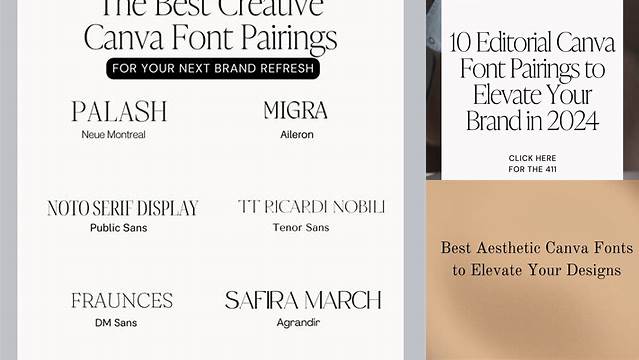
Best Canva Fonts: Create Professional Designs
Choosing the right font is crucial for creating professional and impactful designs. In this article, we'll explore the best professional fonts available in Canva, helping you elevate your projects and make a lasting impression. Whether you're working on branding materials, marketing collateral, or presentations, selecting the right font can significantly enhance the overall aesthetic and convey the right message. Let's dive into the world of typography and discover the perfect fonts to make your designs stand out.
Why Font Choice Matters for Professional Designs
Font choice is paramount when it comes to professional designs. The fonts you select can significantly influence how your audience perceives your brand and the message you're trying to convey. Think of fonts as the voice of your design; they communicate personality, tone, and professionalism. A well-chosen font can enhance readability, create visual harmony, and reinforce brand identity, while a poorly chosen font can detract from the overall impact and even confuse your audience. For instance, using a playful, cartoonish font for a serious financial report would be highly inappropriate and undermine your credibility.
Readability is a key factor in professional design. Your audience needs to be able to easily read and understand the text, whether it's on a website, a brochure, or a presentation slide. Opt for fonts that are clear, legible, and appropriately sized for the medium. Avoid overly decorative or stylized fonts that can strain the eyes and make the text difficult to decipher. A clean and simple font ensures that your message is easily accessible and understood.
Consistency in font usage is also vital for maintaining a professional image. Establish a clear font hierarchy for your brand, typically consisting of a primary font for headings, a secondary font for body text, and potentially a third font for accents or callouts. Stick to these fonts across all your design materials to create a cohesive and recognizable brand identity. Inconsistent font usage can make your designs look disjointed and unprofessional, undermining your brand's credibility.
Fonts evoke emotions and associations, so choose fonts that align with your brand's personality and values. A classic serif font like Times New Roman might convey a sense of tradition and authority, while a modern sans-serif font like Helvetica might project a more contemporary and approachable image. Consider the emotional impact of different fonts and how they contribute to the overall message of your design. Color of the font is another very important thing to consider, and should be aligned with the message that you want to pass to your audience, remember that less is more.
Top Serif Fonts for a Professional Look
Serif fonts are characterized by the small decorative strokes, or serifs, at the end of each character. These fonts are often associated with tradition, authority, and elegance, making them ideal for professional designs that aim to convey a sense of trustworthiness and sophistication. In Canva, several serif fonts stand out for their versatility and readability.
Lora is a well-balanced serif font that combines readability with a touch of elegance. Its contemporary feel makes it suitable for a wide range of professional applications, from body text in reports and brochures to headings in presentations. Lora's graceful curves and balanced letterforms create a visually appealing and easy-to-read typeface.
Playfair Display is an excellent choice for headings and titles. Its high contrast and elegant design make it stand out, adding a touch of sophistication to any project. While it's not ideal for body text due to its decorative nature, Playfair Display is perfect for making a statement in your headings and drawing attention to key information.
Merriweather is designed specifically for on-screen reading. Its slightly condensed letterforms and sturdy serifs make it highly legible even at smaller sizes. This font is a great option for body text in websites, blogs, and digital documents, ensuring that your content is easy to read and understand on any device.
Georgia, a classic serif font, is known for its excellent readability and timeless appeal. It's a versatile choice for both print and digital designs, making it a reliable option for a wide range of professional applications. Georgia's clear and simple letterforms ensure that your message is easily conveyed, regardless of the medium.
Other notable serif fonts include Arvo, Bitter, and Libre Baskerville. Arvo is a slab-serif font with a geometric design, offering a modern twist on the traditional serif. Bitter is designed for comfortable reading on digital screens, with slightly rounded serifs that reduce eye strain. Libre Baskerville is a refined and elegant font that's perfect for adding a touch of sophistication to your designs.
Best Sans-Serif Fonts for Modern Professionalism
Sans-serif fonts, characterized by the absence of serifs, offer a clean and modern aesthetic that's well-suited for contemporary professional designs. These fonts are often associated with simplicity, clarity, and innovation, making them ideal for businesses that want to project a forward-thinking image. Canva offers a variety of sans-serif fonts that can elevate your designs with their sleek and minimalist appeal.
Open Sans is a highly versatile and readable sans-serif font that's perfect for a wide range of professional applications. Its clean and simple letterforms make it easy to read both on screen and in print, making it a great choice for body text, headings, and captions. Open Sans's neutral design ensures that it doesn't distract from your message, allowing your content to take center stage.
Montserrat is a geometric sans-serif font that exudes modernity and sophistication. Its clean lines and balanced letterforms make it a popular choice for branding materials, websites, and presentations. Montserrat's versatility allows it to be used in a variety of design contexts, from headlines to body text.
Lato is a sleek and modern sans-serif font that's known for its warm and friendly appearance. Its slightly rounded letterforms create a welcoming and approachable feel, making it a great choice for businesses that want to connect with their audience on a personal level. Lato is highly legible and works well in both print and digital designs.
Raleway is an elegant sans-serif font that's perfect for adding a touch of sophistication to your designs. Its thin and graceful letterforms make it ideal for headings, logos, and branding materials. While it's not as readable as some other sans-serif fonts in smaller sizes, Raleway can make a strong visual impact when used effectively.
Other popular sans-serif options include Roboto, Poppins, and Nunito. Roboto is a widely used font that offers excellent readability and a modern aesthetic. Poppins is a geometric sans-serif font with a clean and minimalist design, making it a great choice for contemporary projects. Nunito is a rounded sans-serif font that exudes friendliness and approachability.
Combining Fonts for Impactful Design
Combining fonts effectively can significantly enhance the visual appeal and impact of your designs. The key is to create a harmonious balance between different typefaces, ensuring that they complement each other rather than clash. A well-executed font pairing can add depth and personality to your designs, making them more engaging and memorable.
One common approach is to pair a serif font with a sans-serif font. This combination creates a contrast that can draw attention to specific elements and improve readability. For example, you might use a serif font like Lora for your headings and a sans-serif font like Open Sans for your body text. This pairing provides a visual hierarchy that guides the reader through your content.
Another strategy is to combine different weights or styles of the same font family. For instance, you could use a bold version of Montserrat for your headings and a regular version for your body text. This approach creates a subtle contrast while maintaining a cohesive look and feel. It's a great way to add visual interest without introducing too much variety.
When combining fonts, consider their personalities and the overall tone of your design. Some fonts have a more formal and serious feel, while others are more playful and approachable. Choose fonts that align with your brand's identity and the message you're trying to convey. Avoid pairing fonts that are too similar, as this can create a monotonous and uninspired look.
Pay attention to the visual harmony between the fonts. Look for fonts that have similar proportions, x-heights, and stroke weights. This will help create a sense of balance and coherence in your design. Experiment with different pairings until you find a combination that feels visually pleasing and effective.
Tools like Canva offer font pairing suggestions to help you find complementary typefaces. These suggestions can be a great starting point, but don't be afraid to experiment and explore different combinations to find what works best for your specific project. Ultimately, the best font pairing is one that enhances readability, reinforces your brand identity, and creates a visually appealing design.
Tips for Using Fonts Professionally in Canva
Using fonts professionally in Canva requires attention to detail and a strategic approach. Here are some tips to help you make the most of Canva's font selection and create designs that stand out for their professionalism and visual appeal.
Establish a clear font hierarchy. Determine which fonts you'll use for headings, subheadings, body text, and captions. Stick to this hierarchy across all your designs to maintain consistency and create a cohesive brand identity. A well-defined font hierarchy helps guide the reader through your content and makes it easy to scan and understand.
Pay attention to font sizes and spacing. Ensure that your font sizes are appropriate for the medium and the viewing distance. Use adequate line spacing (leading) and letter spacing (tracking) to improve readability. Avoid using excessively large or small font sizes, as this can strain the eyes and make the text difficult to read.
Use contrasting font weights and styles strategically. Use bold, italic, and other font styles to emphasize key words, phrases, or concepts. However, avoid overusing these styles, as too much emphasis can be distracting and undermine the overall impact.
Be mindful of color. The color of your font can have a significant impact on its readability and visual appeal. Choose colors that contrast well with the background and that align with your brand's color palette. Avoid using colors that are too similar to the background, as this can make the text difficult to read. When in doubt, black and white are always safe and professional choices.
Test your designs on different devices and screen sizes. Ensure that your fonts are legible and visually appealing on a variety of devices, including desktops, laptops, tablets, and smartphones. Use Canva's preview feature to see how your designs will look on different screens and make any necessary adjustments.
Get feedback from others. Ask colleagues, clients, or friends to review your designs and provide feedback on your font choices. A fresh pair of eyes can often spot issues that you might have missed.
Conclusion: Mastering Font Choices for Professional Success
In conclusion, mastering font choices is essential for creating professional and impactful designs. By understanding the different types of fonts, their characteristics, and how to combine them effectively, you can elevate your projects and make a lasting impression. Canva offers a wide range of fonts that can help you achieve your design goals, but it's important to use them strategically and with attention to detail. Remember to prioritize readability, consistency, and visual harmony in your font selections.
Choosing the right fonts is an art and a science. Experiment with different typefaces, explore font pairings, and pay attention to the overall aesthetic of your designs. With practice and a keen eye, you can develop a strong sense of typography and create designs that are both visually appealing and highly effective. Embrace the power of fonts and use them to communicate your message with clarity, confidence, and style. Whether you're designing a logo, a website, or a marketing campaign, the right fonts can make all the difference in achieving professional success.
By following the tips and guidelines outlined in this article, you can confidently navigate the world of typography and create designs that reflect your brand's personality and values. So, go ahead and explore the vast selection of fonts in Canva, and start creating designs that truly stand out! Remember that the best professional fonts are those that not only look good but also effectively communicate your message and enhance the overall impact of your designs.